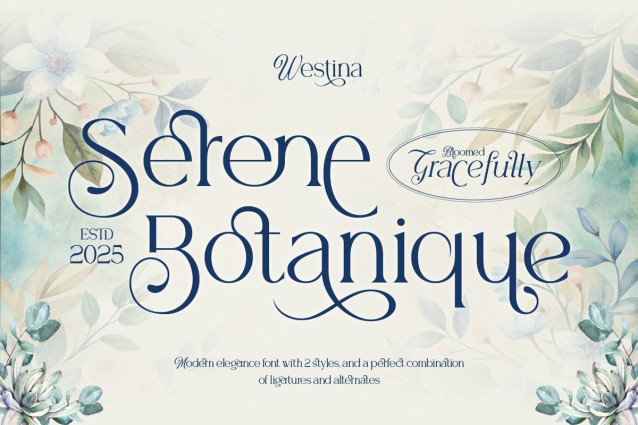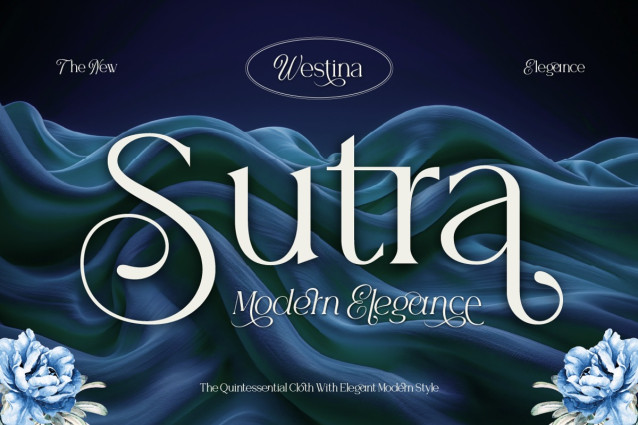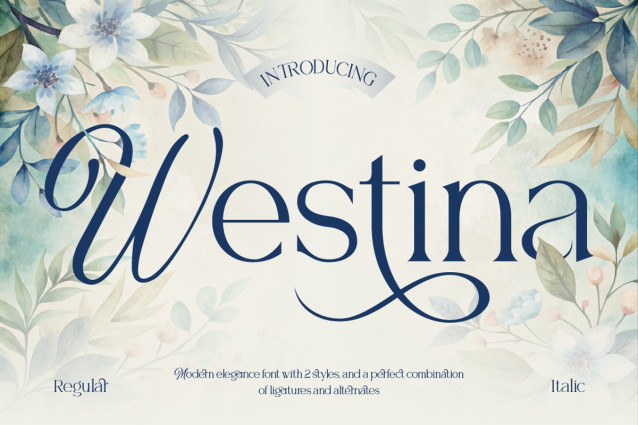
Westina Font
Westina Font, a classy serif font that blends timeless sophistication with a contemporary twist. It comes in two stylish variations:
Regular: Clean and polished—perfect for a refined, professional look.
Italic: Flowing and graceful, adding a touch of dynamic movement. Comes with ligatures and alternates, Westina gives you creative freedom to tailor your designs whether subtle or striking.